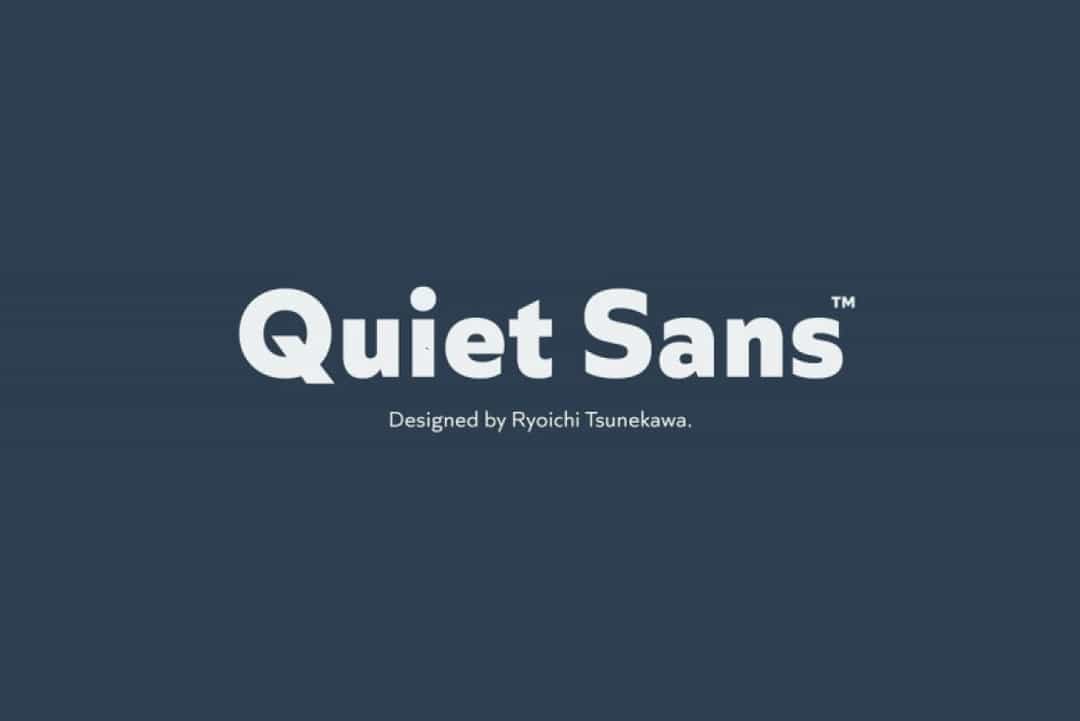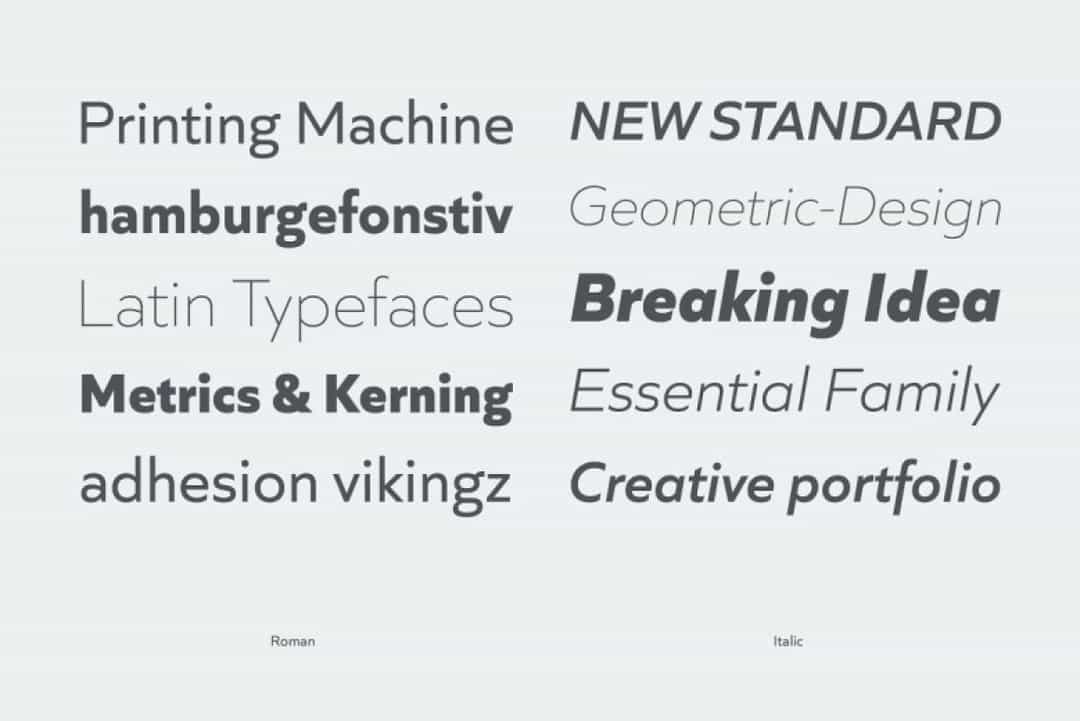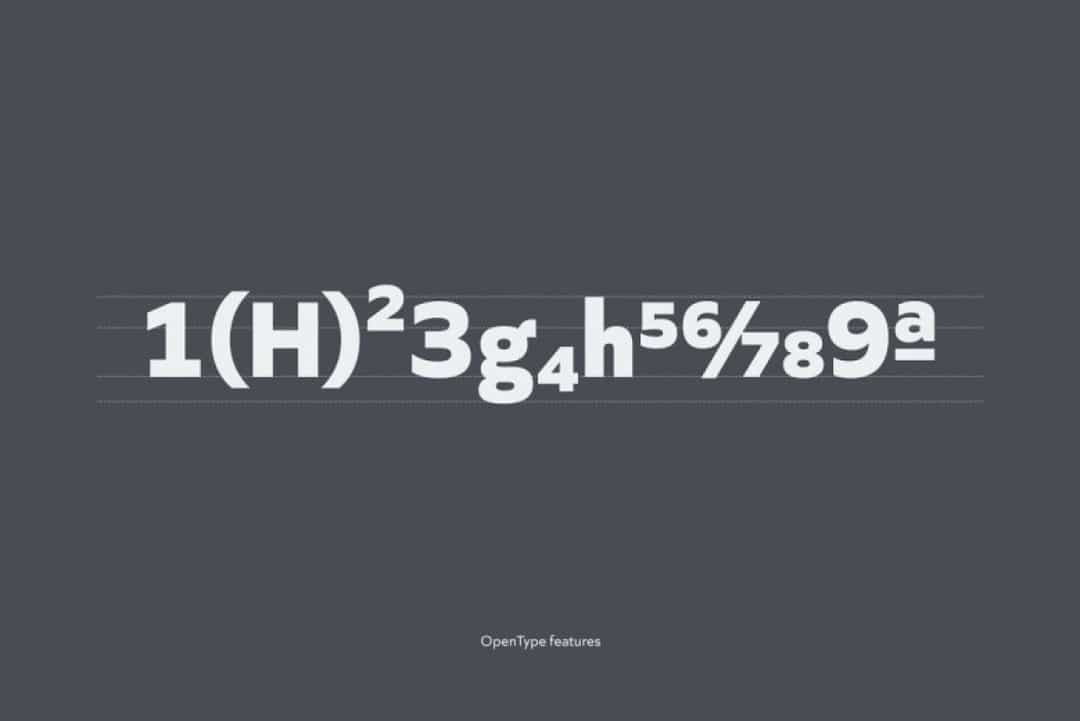
Ryoichi Tsunekawa created Quiet Font as a geometric sans-serif font family for text. Comprised of six weights from ExtraLight to ExtraBold as well as their associated Italics, its main goal is not only to deliver crisp and striking geometric letters with their sophisticated style but also remain legible on smaller screen sizes for readability and legibility.